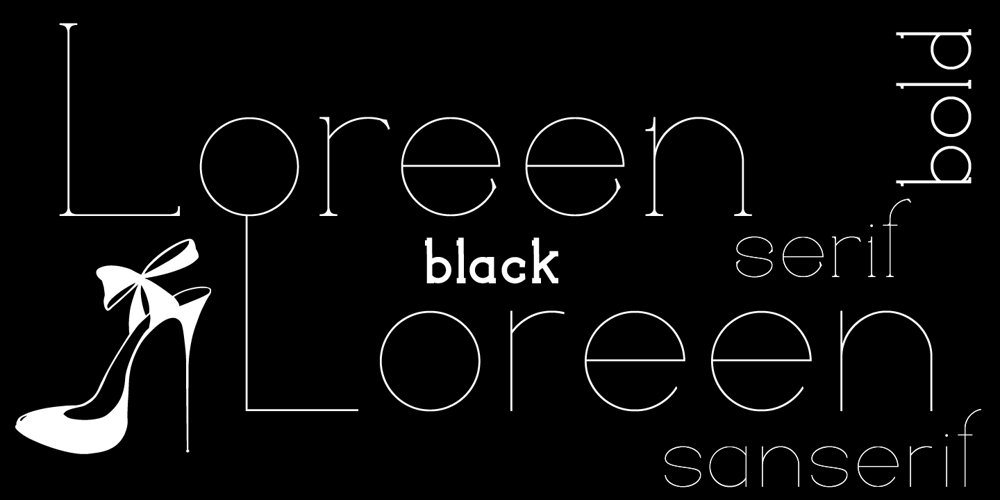
Loreen
Loreen font
Loreen Font Family was designed by Otto Maurer and published by Otto Maurer. Loreen contains 2 styles and family package options. Loreen is a straight line font superfine with and without serifs. So you can make big a Poster in fine letters.